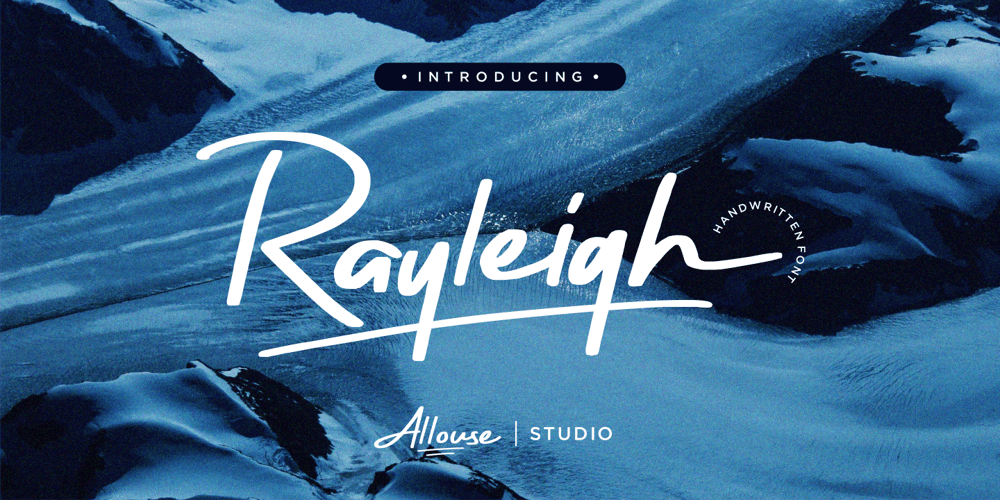
Rayleigh Font Family was designed by Fachrizal Yusuf and published by Allouse Studio. Rayleigh contains 1 styles and family package options. Rayleigh a Handwritten font.Rayleigh come along with Stylistic Alternate, Swash, Underline Style and Multi-Lingual Support which will give you many choices to play around.We highly recommend using a program that supports OpenType features and Glyphs panels like many of Adobe apps and Corel Draw, so you can see and access all Glyph variations.Enjoy the font, feel free to comment or feedback, send me PM or email.